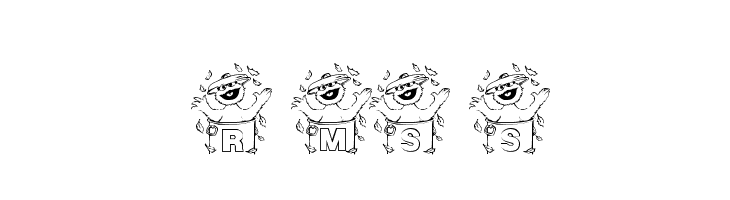
A playful, decorative font with characters encased in whimsical monster illustrations.
An ornate decorative font with characters encased in elegant wreath designs.
A playful, handwritten font with bold, rounded characters and a whimsical style.
A bold, geometric font with a futuristic and digital aesthetic.
A pixelated, retro-style font with a blocky, geometric design.
A bold, geometric font with a modern and futuristic style.
A bold, geometric, and condensed font with rounded corners and a modern industrial feel.
A bold, condensed italic font with a modern and dynamic style.
A bold, geometric font with a modern and futuristic design, featuring expanded width for clarity.
A bold, expanded italic font with a modern and dynamic style.